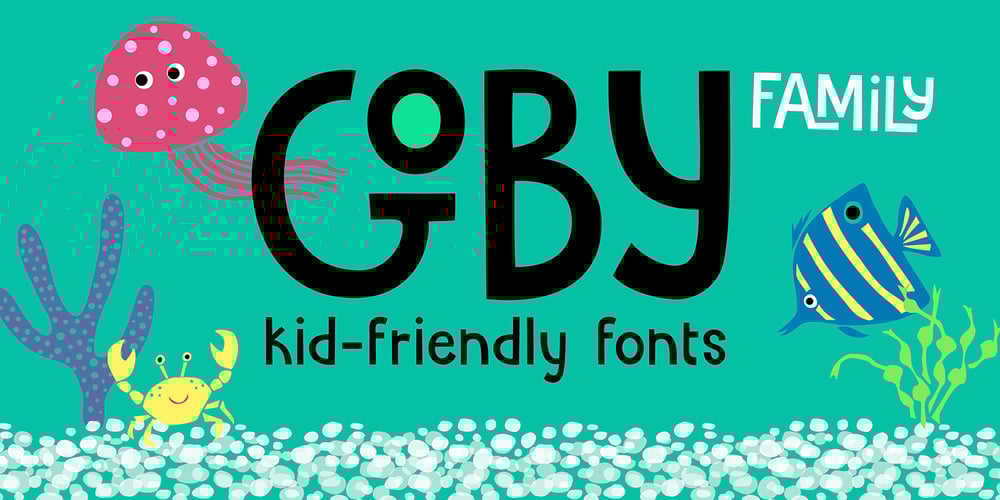
Goby Font Family was designed by Amy Dietrich and published by Atlantic Fonts. Goby contains 2 styles and family package options. Goby has several distinct personalities, and can definitely help you make some waves. Lower case Goby is sweet, lively, easy to read, bold, and always friendly. Goby also works great in all-caps, and if you turn on discretionary ligatures, discover a huge stash of funky two and three-letter ligatures that can make ordinary words look extraordinary. The Goby font family also includes Goby Graphics, an ocean-y collection of illustrations by Amy Dietrich. If you need some artful seaweed, a head of coral, a seahorse, or maybe a smiling hermit crab, the unique images of Goby Graphics will work swimmingly.